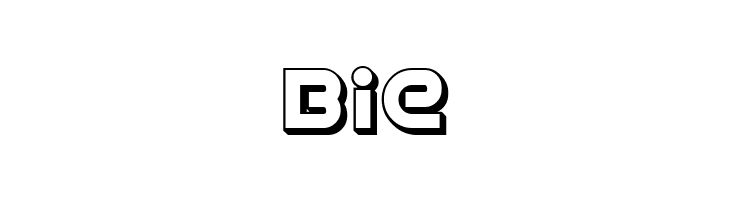
• Spin Cycle 3D
A bold, 3D outlined font with a modern and playful aesthetic.
• SpinCycle3DOT
A bold, modern font with a three-dimensional outline style and geometric shapes.